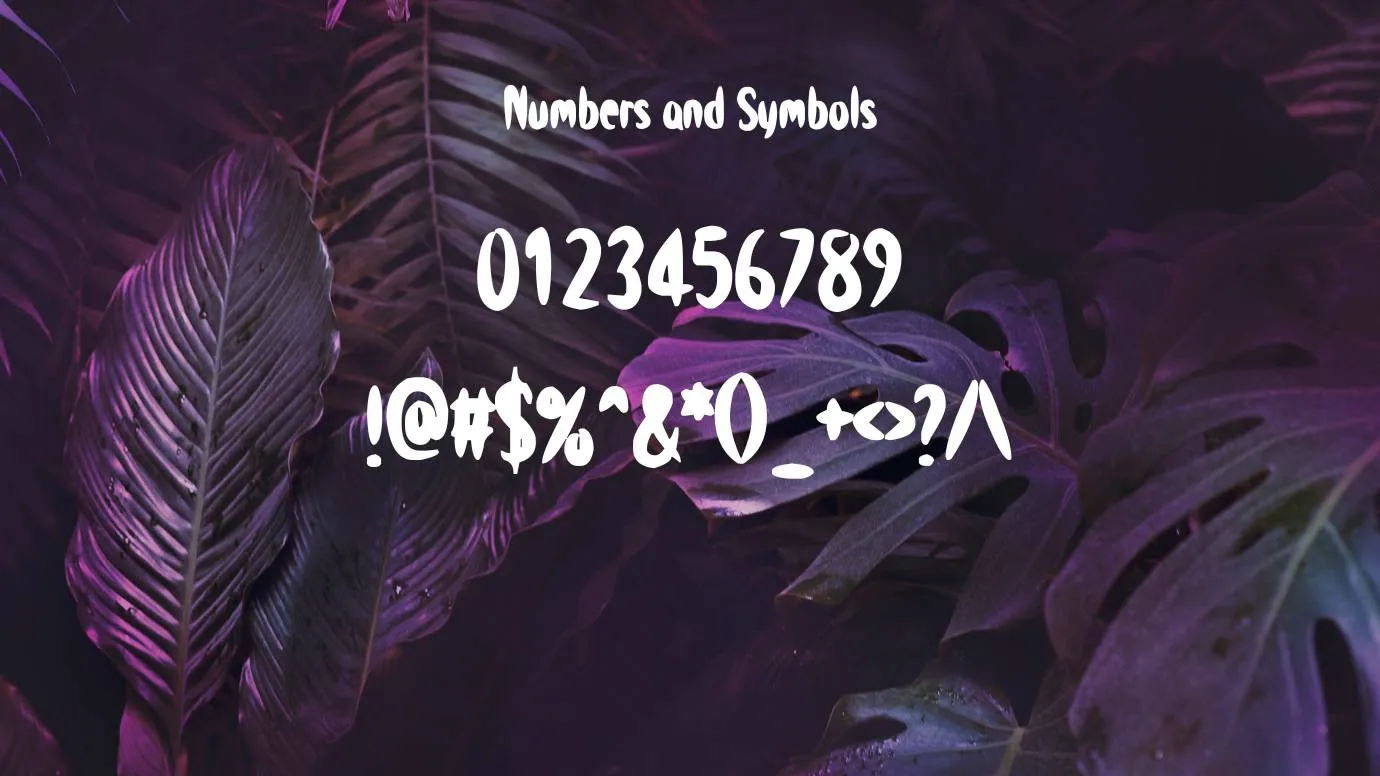
Sunday Suspense Font is a bold letter font that is best for display designs. The elegance of your proposed project can be improved by this font style design with other fonts. Basically, it is a fancy typeface.
This font has a beautiful style that creates unique projects. This font is a fantastic choice if you’re searching for an interesting style, it is an easy-to-read typeface that will make your text unique.
It is an ideal style for every project and contains various capital and lower sets. You can use the style sets of characters to create a variety of projects. You can also easily combine it with liquido font.
How to Use Sunday Suspense Font effectively?
This style is best for creating headers and banners. The text design can be used to create unique headings, the style is ideal for the use of new project creation.
Any project design can be created with this typeface. This typeface has all the features that are needed to create a unique project. The style has a classy look. It has a unique design, which makes it easy to read.
A typeface is an excellent option if you’re searching for a beautiful font that will create your project stand out in front of the audience. This is a tremendous option for creating powerful and fashionable graphics.
The typeface design has unique features. It is an attractive and eye-catching typeface. Several design projects can be created by using this style.
Where can we utilize the Sunday Suspense Font?
You can utilize this inspiring typeface in brand logo designing, business plan layouts, website designs, t-shirt designs, and more.
Which textual style is similar to Sunday Suspense Font?
Many fonts are similar to this unique typeface but Broken Glass Font is quite comparable to this amazing typeface.
Is the Sunday Suspense typeface having good readability?
Sunday Suspense Font has good readability even from a distance you can read the text design clearly.